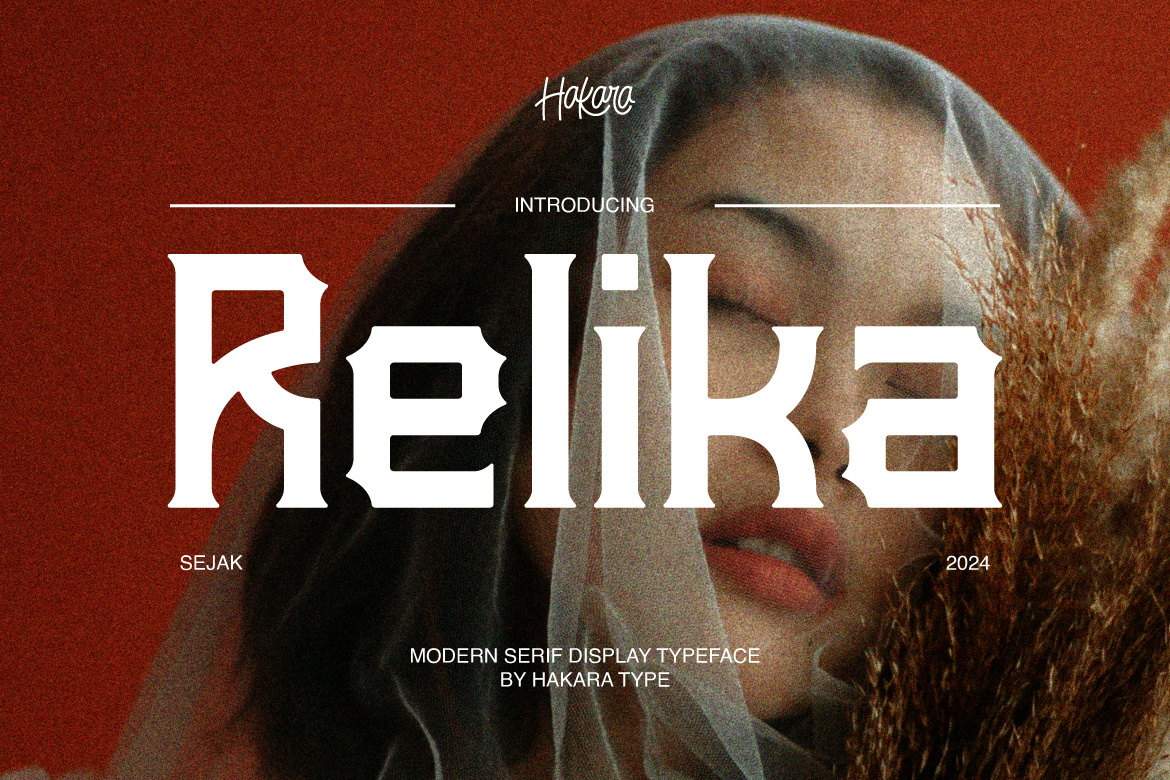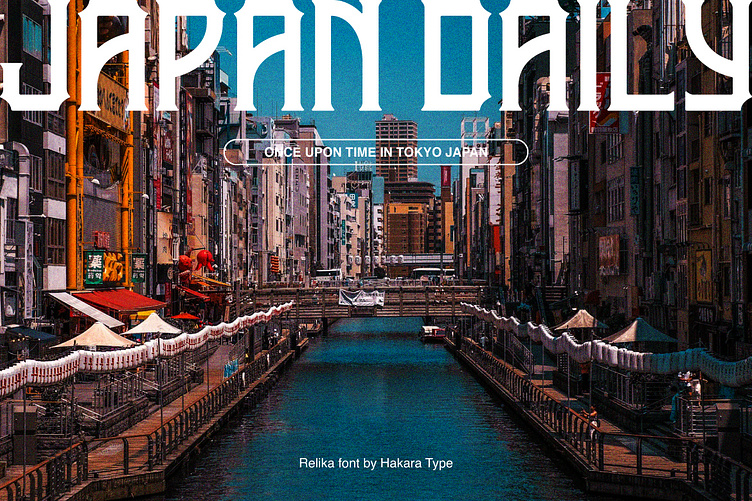
Relika - Display Serif Font
Relika is a display serif font, inspired by blackletter style lettering. Relika comes in regular, outline, and rough versions. It also contains uppercase, lowercase, as well as numbers only. It is free to use for personal and commercial.
This font is ideal for projects embracing retro style, web design, and visuals aiming to radiate a vintage and a bold simplicity.